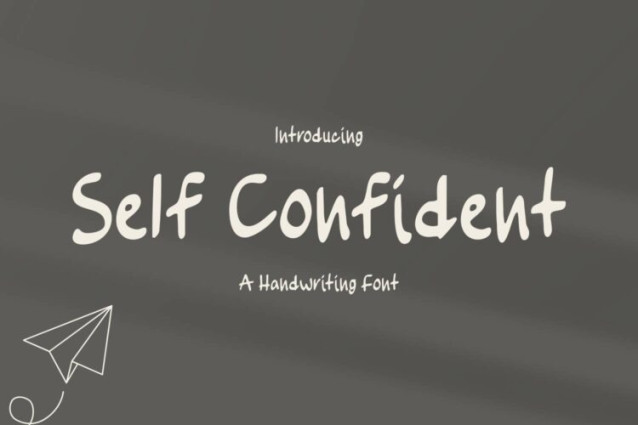
Self Confident Typeface
Self Confident Typeface a sweet and friendly handwritten font. Cute and fun, this font is ideal for writing wedding invitations, cards, or any other design that might need a fun touch!